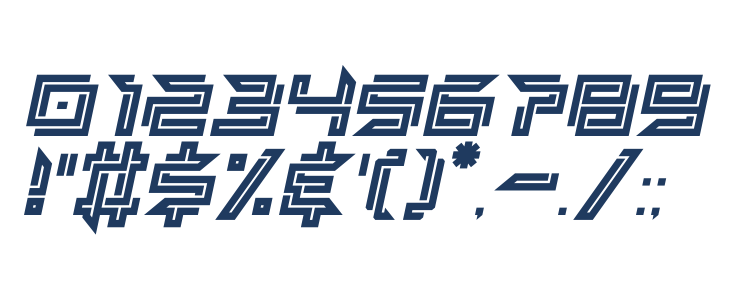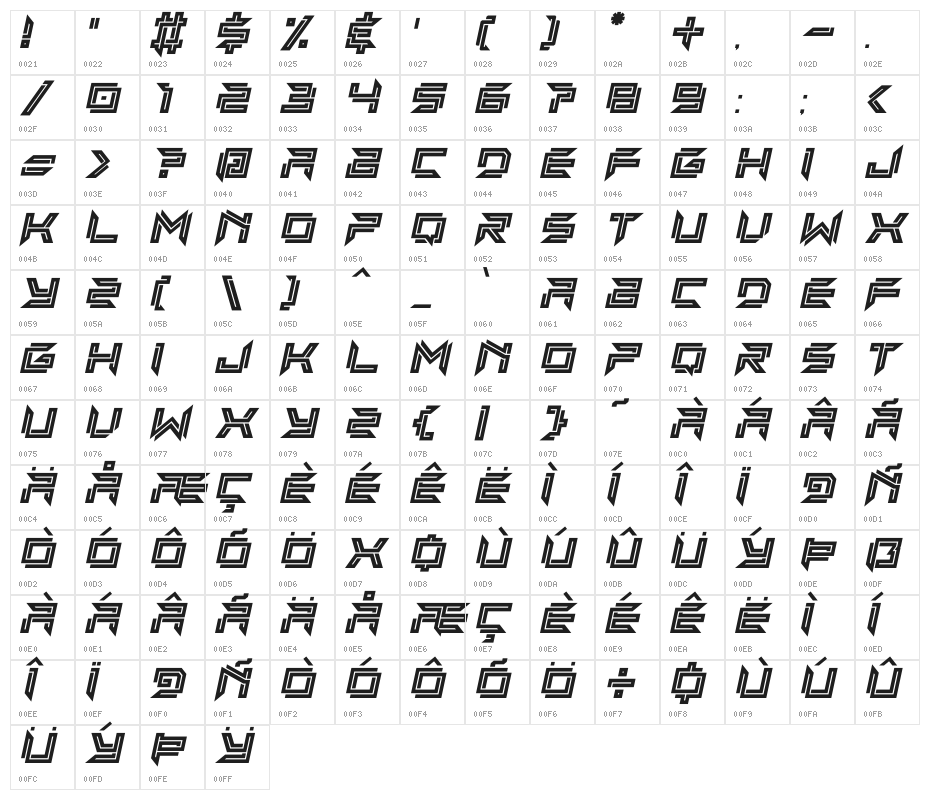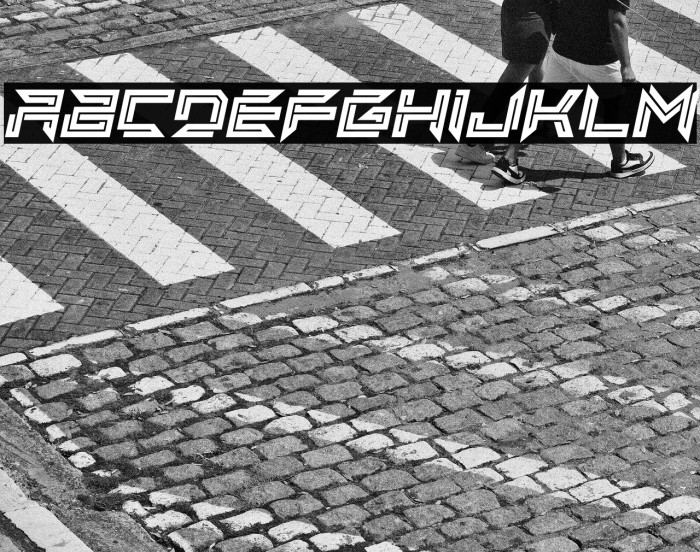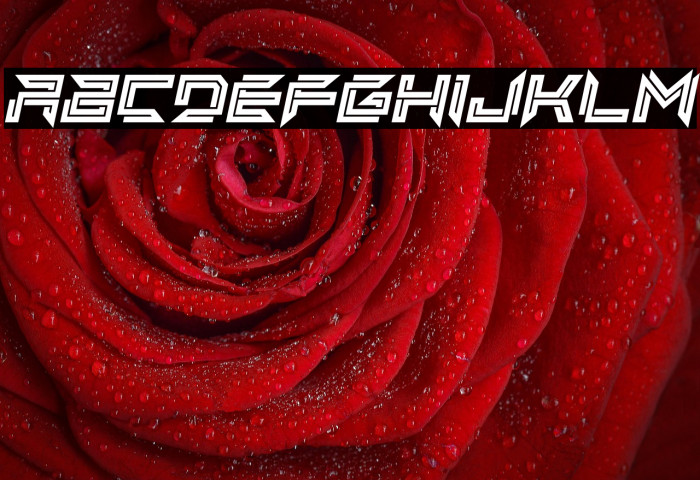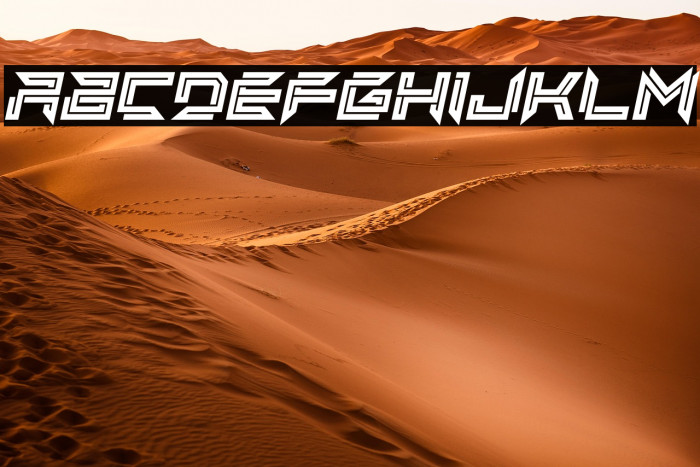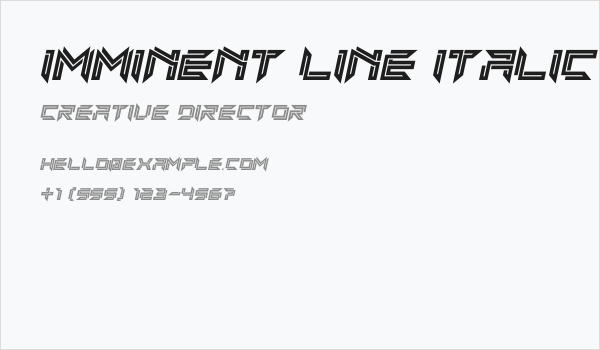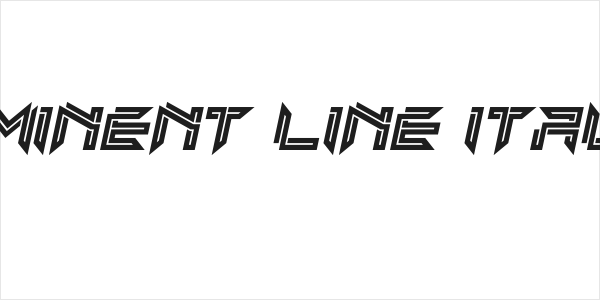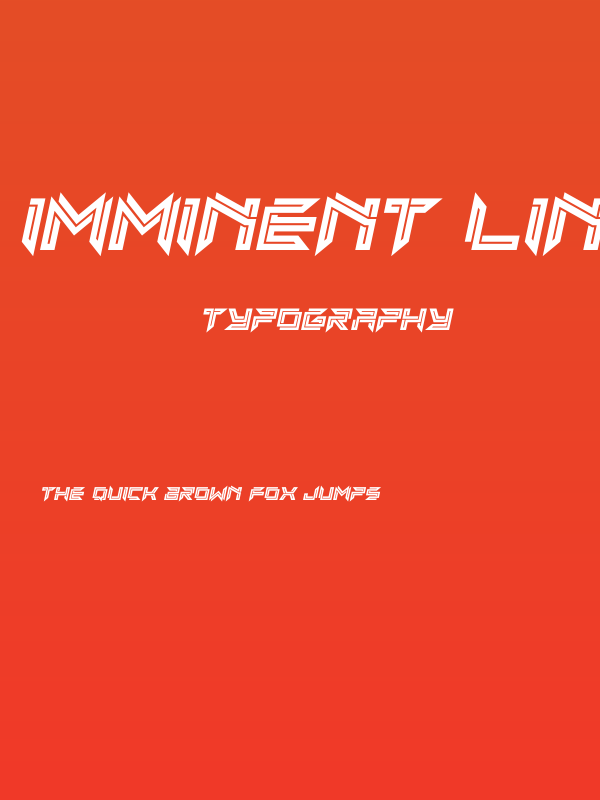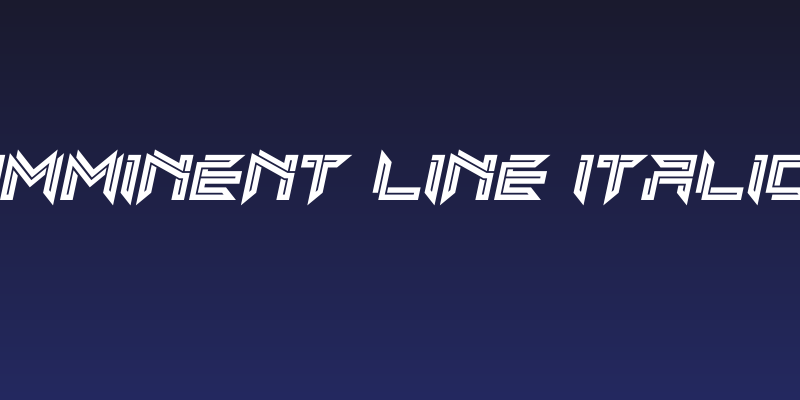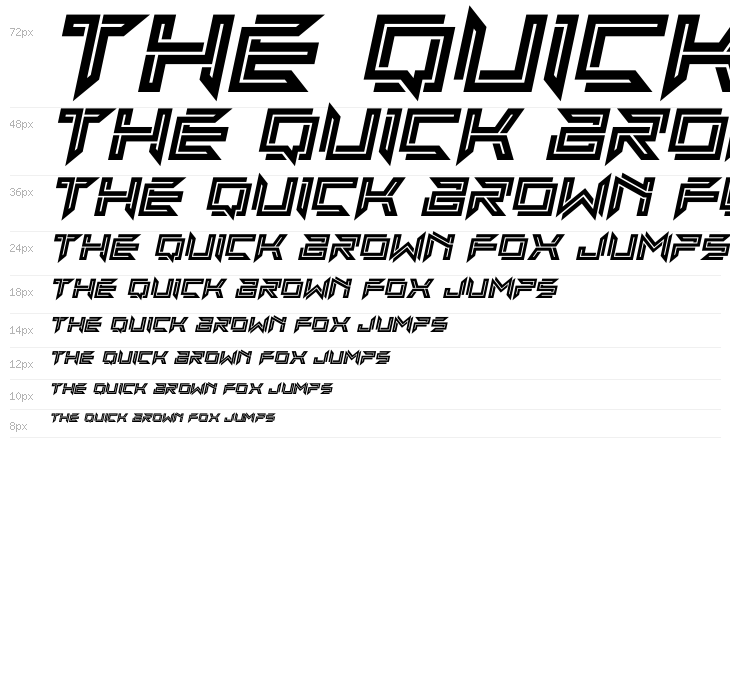
Imminent Line Italic Font
Imminent Line Italic Description
This font features a futuristic and angular design, characterized by sharp edges and geometric shapes. The letters are bold and italicized, giving a sense of motion and speed. The uppercase and lowercase characters maintain a consistent style, with each letter having a unique, edgy appearance. The numbers and special characters follow the same design principles, ensuring uniformity across the font. The overall look is modern and dynamic, making it suitable for projects that require a bold and striking visual impact.
| Proposed Projects | Ideal for sci-fi themed designs, video game titles, tech branding, and futuristic posters. |